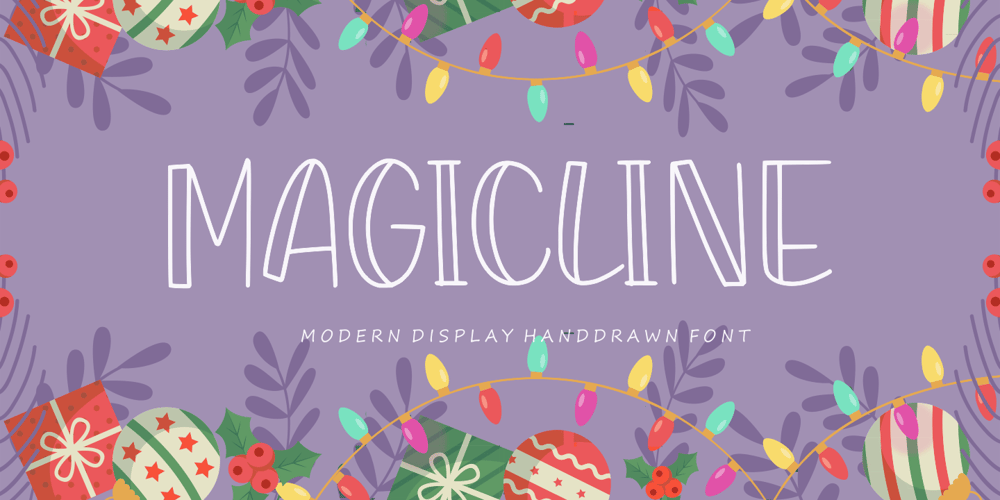
Magicline
Magicline font
Magicline Font Family was designed by Restu Angga and published by Balpirick. Magicline contains 1 styles and family package options. MAGICLINE is a Modern Display Handdrawn Font.Magicline is a trendy display font, described by an unique touch, perfect for your favorite projects. Fall in love with its incredibly distinct and timeless style and use it to create spectacular designs!MAGICLINE also multilingual support.Enjoy the font, feel free to comment or feedback, send me PM or email.Thank you!